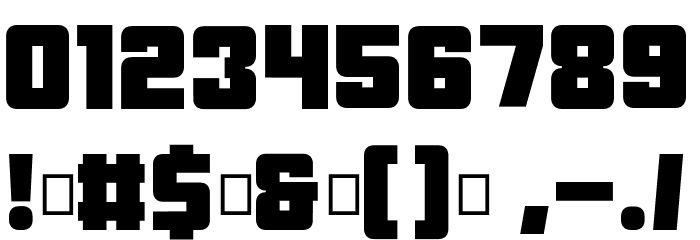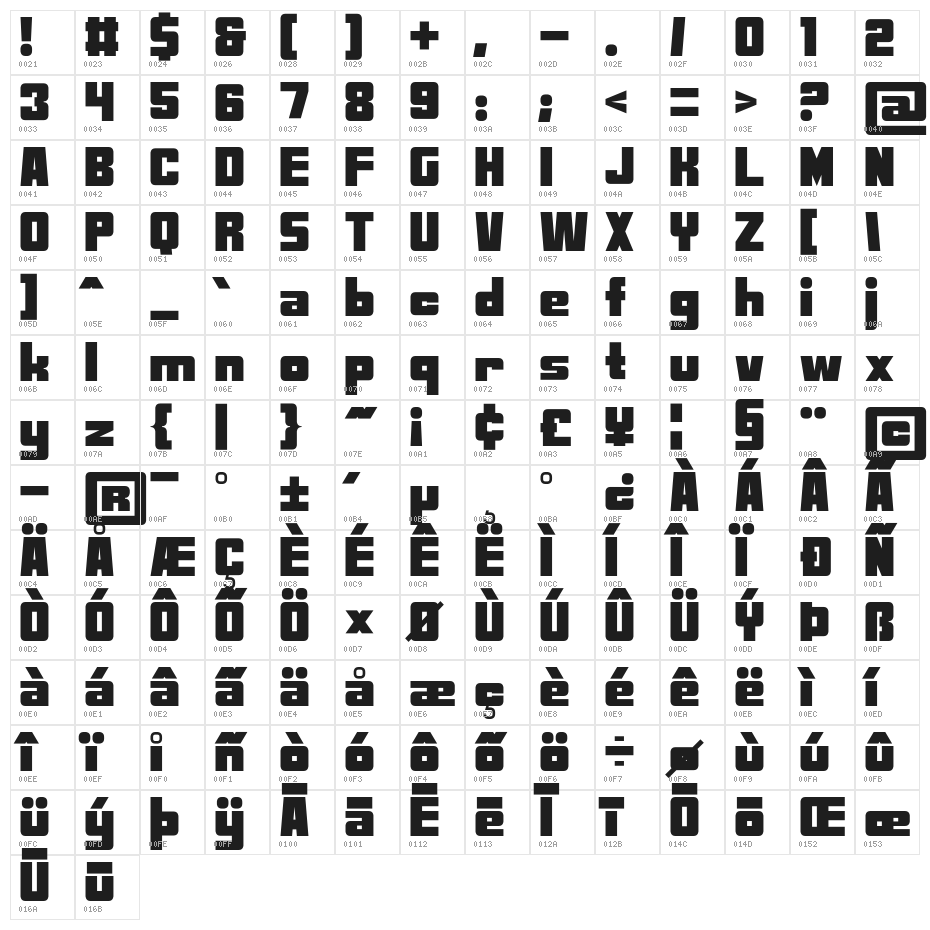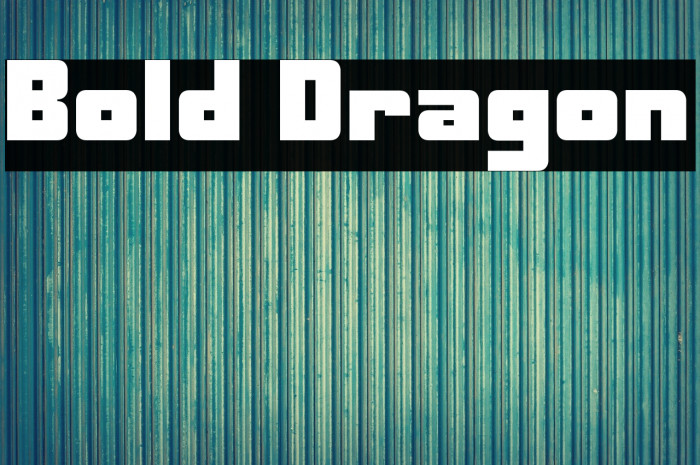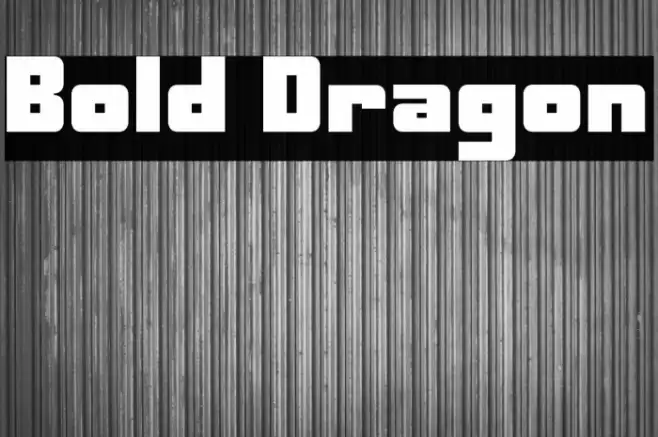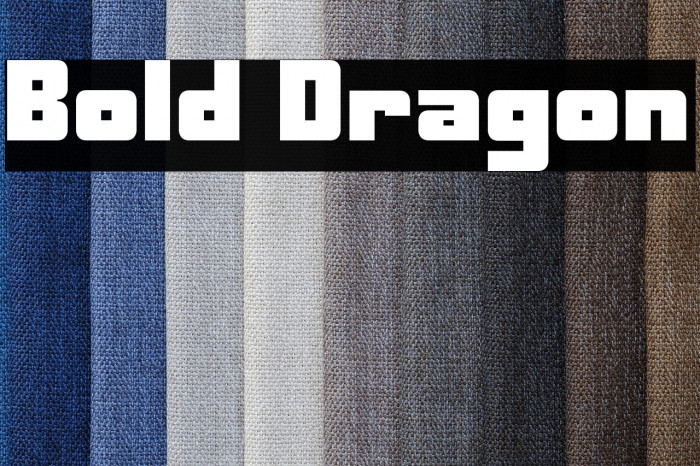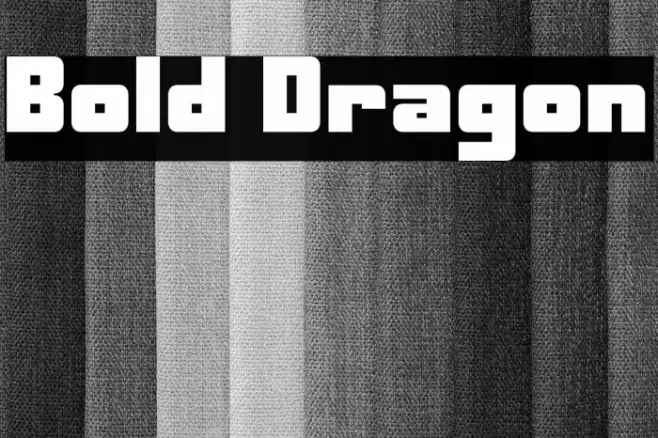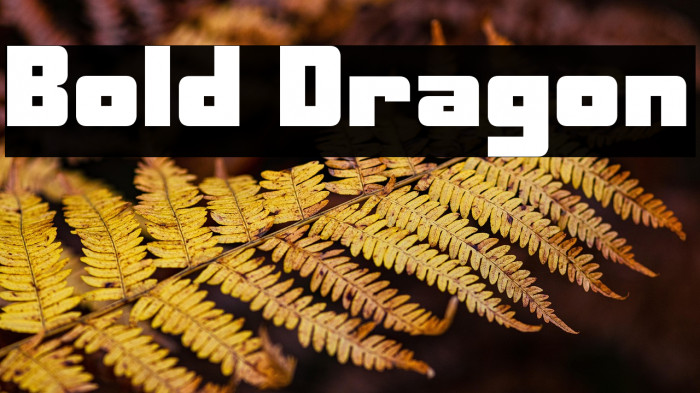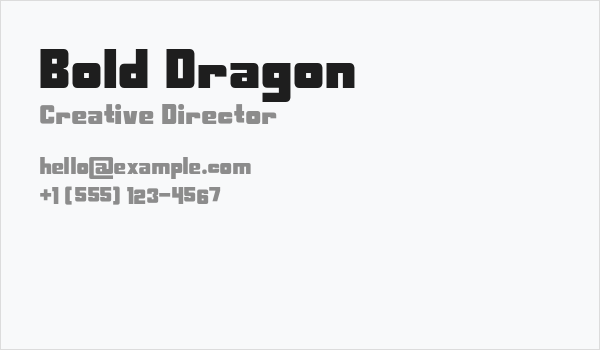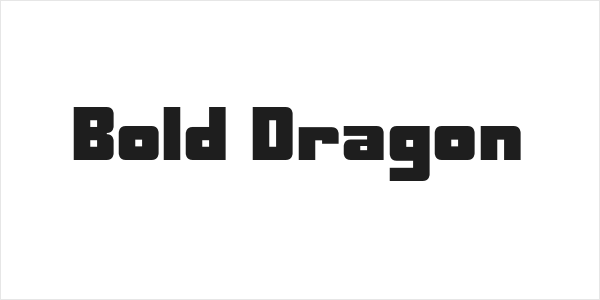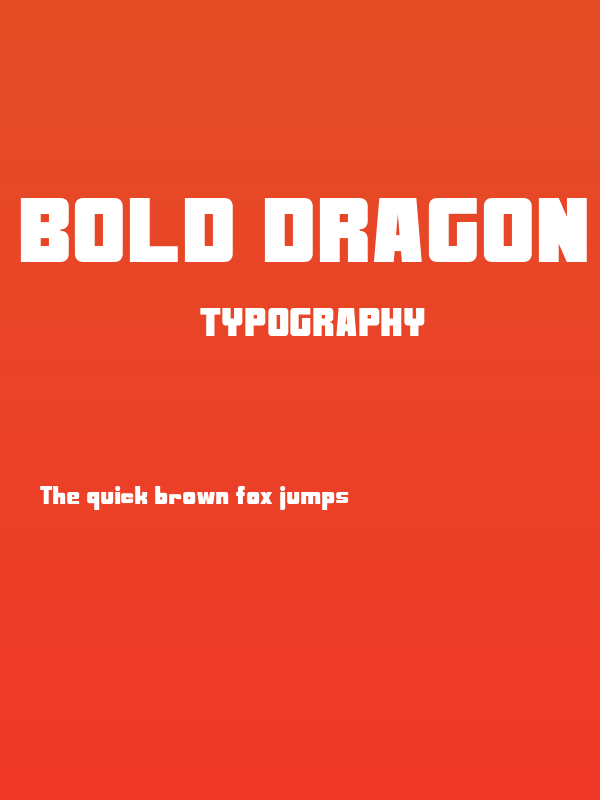
Bold Dragon Font
Bold Dragon Description
This font features a bold, impactful design with strong geometric shapes and a robust presence. The uppercase letters are particularly striking, with thick lines and sharp angles that convey a sense of strength and modernity. The lowercase letters maintain the boldness while offering a slightly softer edge, making them versatile for various design needs. Numbers and special characters are equally bold, ensuring consistency across all uses. The font's overall style is both modern and decorative, making it suitable for attention-grabbing headlines and logos.
| Proposed Projects | This font is perfect for branding projects, logo design, posters, and any creative work that requires a strong visual impact. |